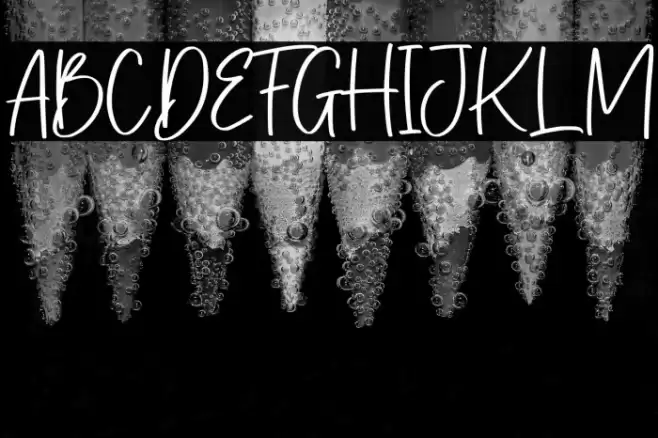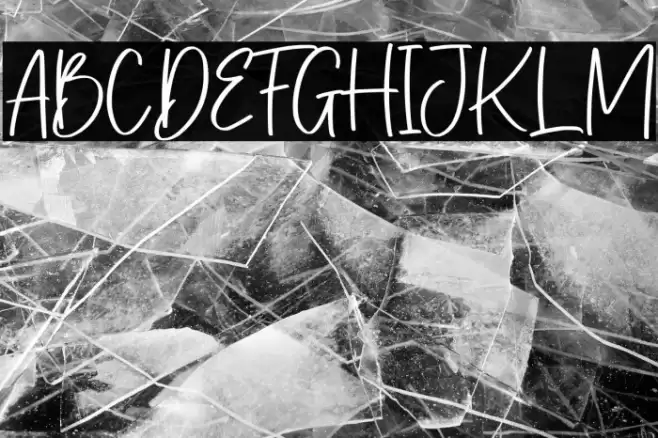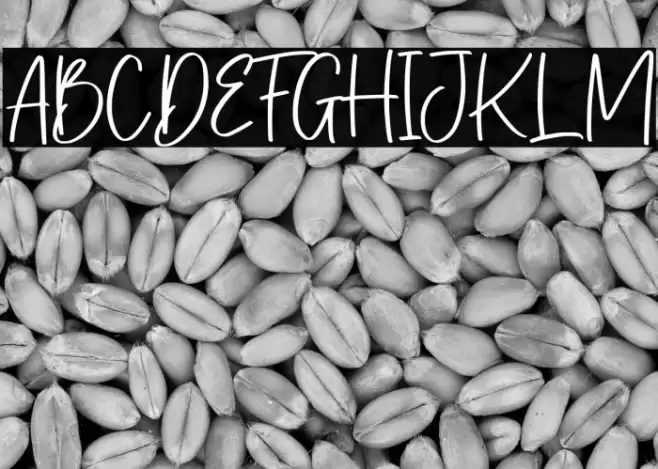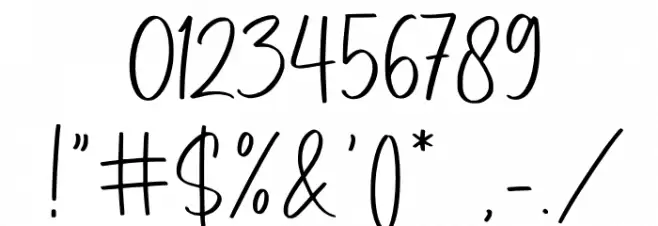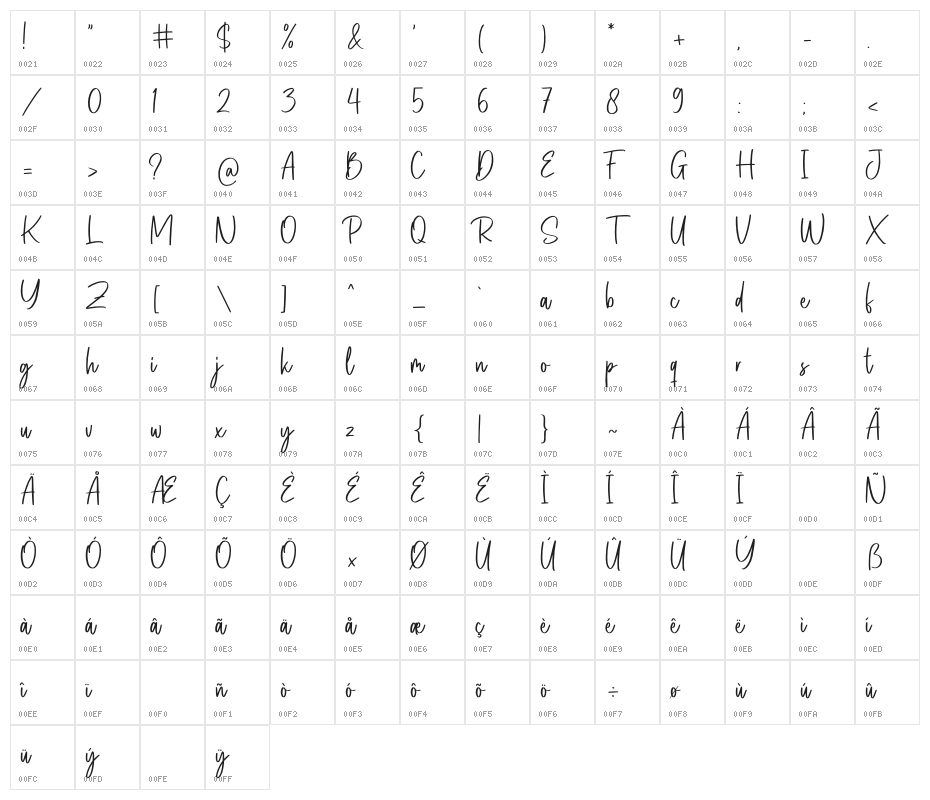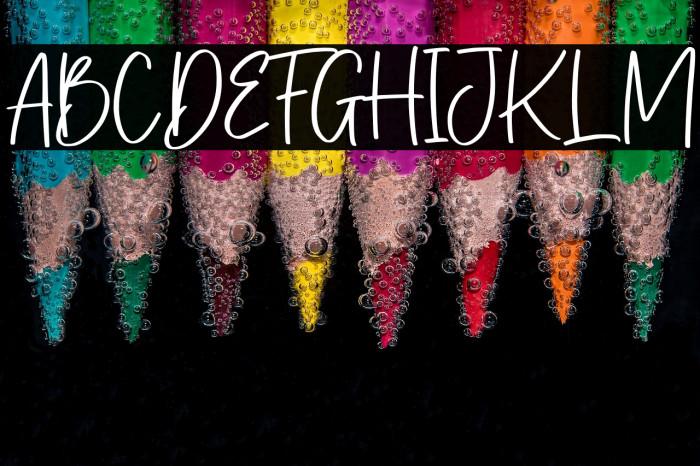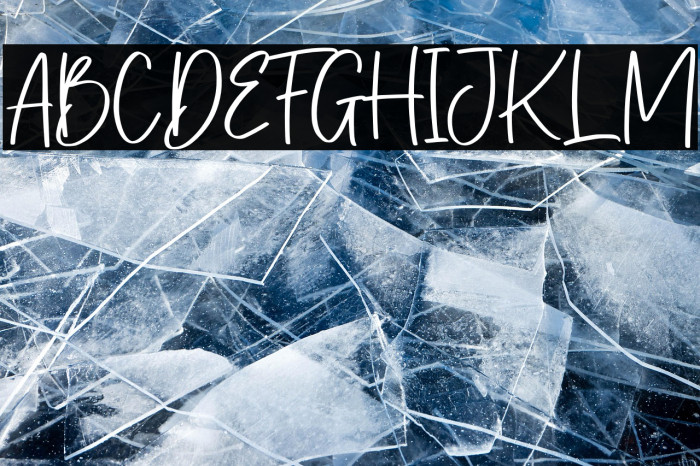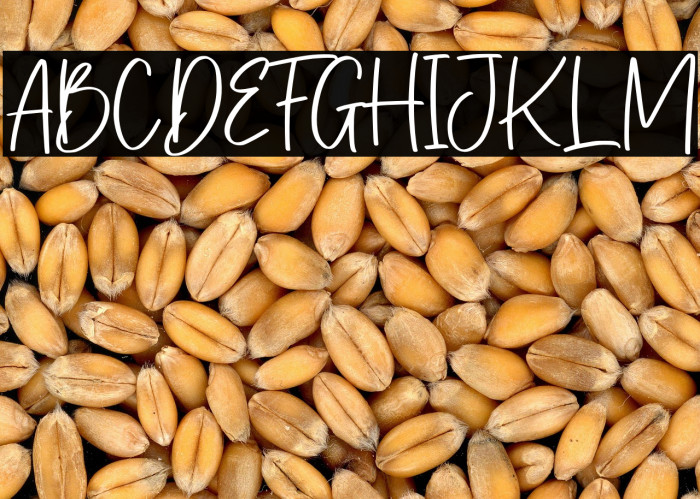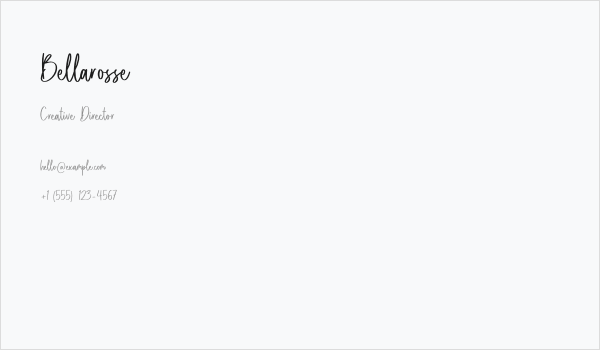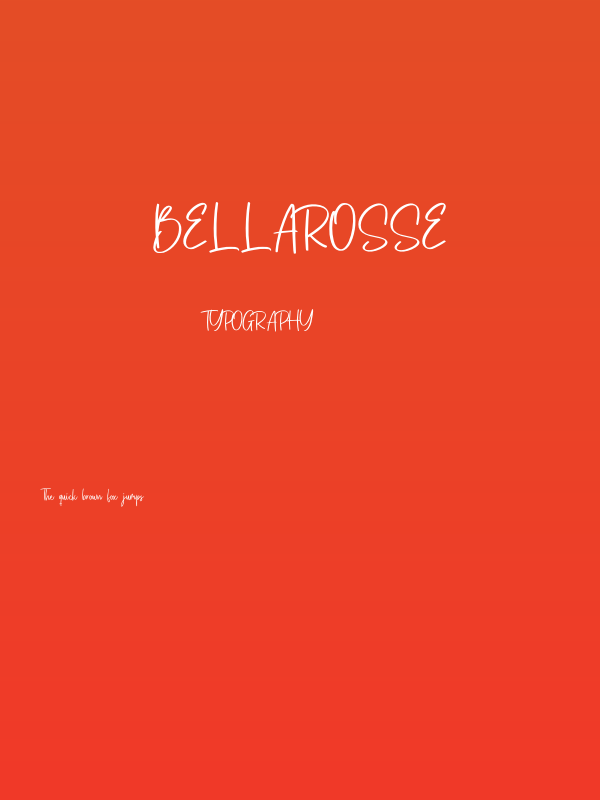
Bellarosse Font
Bellarosse Description
This font features a lively and expressive handwritten style, characterized by its fluid and dynamic strokes. The uppercase letters are tall and slightly narrow, with a playful yet elegant flair. The lowercase letters maintain a consistent flow, enhancing the font's readability while preserving its artistic charm. Numbers and special characters are crafted with the same attention to detail, ensuring a cohesive look across all glyphs. The overall design exudes a sense of personal touch and creativity, making it suitable for projects that require a warm and inviting aesthetic.
- Font: Bellarosse
- Proposed Projects: Ideal for wedding invitations, greeting cards, personal branding, and creative projects that require a personal touch.
- Use Case: Logos, Invitations, Greeting Cards